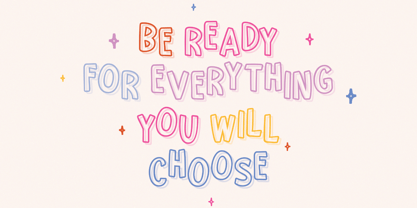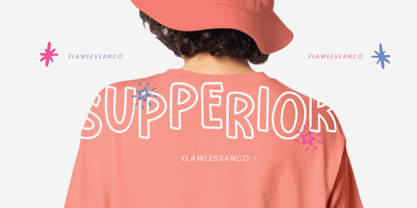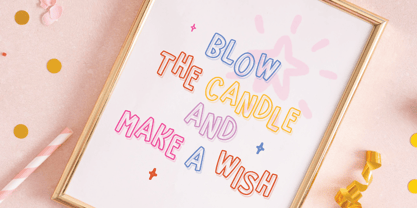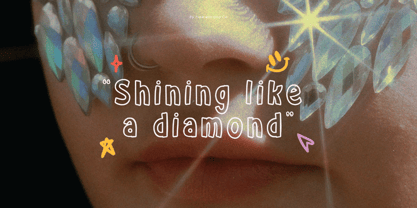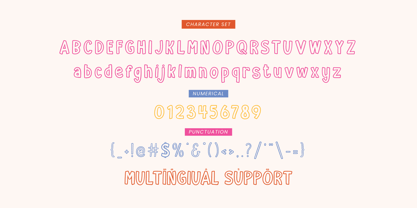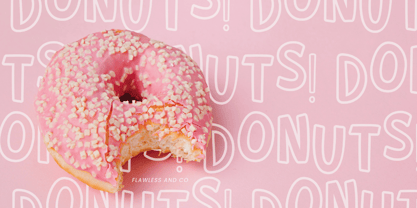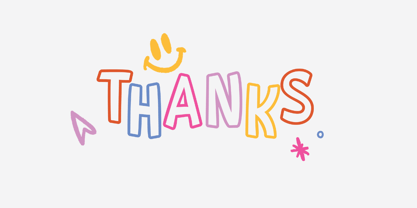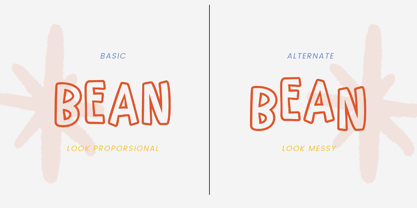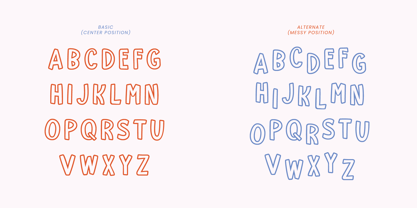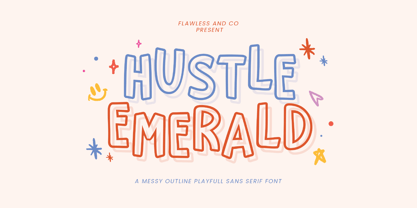
Hustle Emerald
by Flawlessandco
The Hustle Emerald Font Family was designed by Achmad Yani and published by Flawlessandco. Hustle Emerald contains 1 styles. More about this family
Hustled Emerald is a messy outline playful sans serif font that brings a fun and energetic vibe to your designs. With its hand-drawn aesthetic and unique character, this font is suitable for children’s books, comic titles, creative branding, posters, social media graphics, and playful packaging. Add a touch of whimsical charm to your projects with Hustled Emerald!
There's some connected letters and some alternates that suitable for any graphic designs such as branding materials, print, business cards, logo, poster, t-shirt, photography, quotes, etc.
This font support for some multilingual. Also contains uppercase A-Z and lowercase a-z, alternate character, numbers 0-9, alternates & ligatures, and some punctuation.